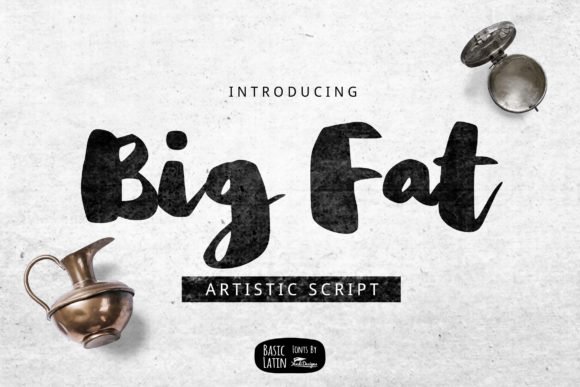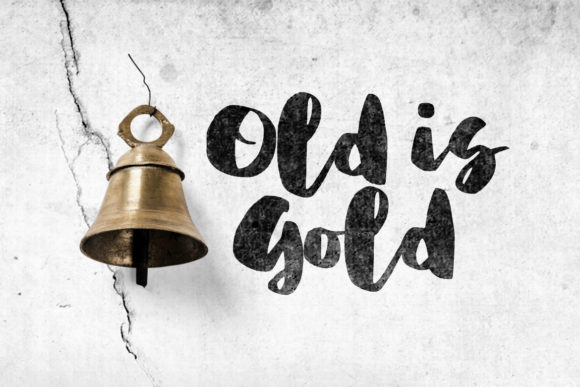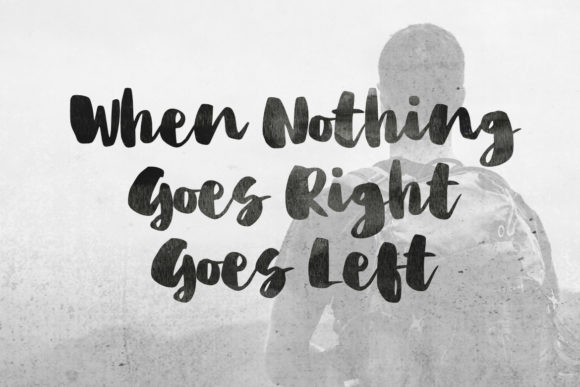
Discover the Unstoppable Charm of Big Fat Font
Have you ever stared at a blank canvas, waiting for that spark of inspiration to strike? For designers, it’s a moment we all know too well. But what if we told you that the perfect font is just around the corner? Meet Big Fat Font, a bold handwritten font that’s been carefully handcrafted to capture the hearts of designers and non-designers alike.
With its casual charm and effortless readability, Big Fat Font is the ultimate addition to any design project. Whether you’re looking to add a touch of personality to a busy background or create a show-stopping headline, this font is sure to shine. Its versatility makes it a valuable asset for designers, allowing them to push the boundaries of creativity and bring their unique vision to life.
Key Features of Big Fat Font
- Unique Characteristic: Distinctive, bold, and playful design that is perfect for making a statement in various applications, including signage, advertising, and editorial content.
- Font Style: Available in a single font style, which is ideal for creating a cohesive and consistent look across different mediums and platforms.
Designer Review: Big Fat Font
Overall, I think Big Fat Font is a solid choice for designers who want to make a statement with their typography. ✨ The font is bold, eye-catching, and really grabs the viewer’s attention. I love the way it adds a touch of playfulness to any design project.
- ✨ High-contrast colors make the font really pop on any background.
- ✨ The bold weight of the font is perfect for headlines and titles.
- ✨ It’s highly customizable, so you can adjust the size, color, and spacing to fit your design.
However, I do have a few concerns about the font’s limitations.
- ⚠️ The font can be a bit too overpowering for smaller text, making it hard to read.
- ⚠️ Some users may find the font too cheesy or overused.
- ⚠️ It’s not ideal for body text or long paragraphs, as it can be tiring to read.
Overall, I think Big Fat Font is a fun and effective choice for designers who want to add some personality to their work. While it’s not perfect, it’s definitely a great option for making a statement.
Getting the Most Out of Big Fat Font
Here are some tips to get the most out of Big Fat Font:
- Use it sparingly to add emphasis and draw attention to important text.
- Pair it with a clean and simple background to avoid visual clutter.
Big Fat Font is commonly used in:
- Headlines and titles.
- Call-to-actions and buttons.
- Emphasis and highlighting text.
Alternatives to Big Fat Font
Impact Font
Impact is a sans-serif font that is often used for headings and titles. It’s bold and condensed, making it ideal for use in situations where you want to draw attention to a particular piece of text. Impact is similar to Big Fat Font in that it’s bold, but it’s more condensed and has a slightly different feel.
Akzidenz-Grotesk
Akzidenz-Grotesk is a sans-serif font that was originally designed for use in advertising and signage. It’s bold and blocky, making it ideal for use in situations where you want to create a sense of drama or emphasis. Akzidenz-Grotesk is similar to Big Fat Font in that it’s bold, but it has a more geometric feel.
Playfair Display is a serif font that is often used for headings and titles. It’s elegant and sophisticated, making it ideal for use in situations where you want to create a sense of luxury or refinement. Playfair Display is different from Big Fat Font in that it’s a serif font, and it has a more refined feel.
Montserrat is a sans-serif font that is often used for headings and titles. It’s bold and geometric, making it ideal for use in situations where you want to create a sense of modernity or sophistication. Montserrat is similar to Big Fat Font in that it’s bold, but it has a more geometric feel and is often used in urban or industrial contexts.
Q: Can I customize Big Fat Font to fit my design needs?
Yes, Big Fat Font is highly customizable. You can adjust the font’s size, color, and style to fit your design needs. Additionally, many design applications offer advanced typography features, such as kerning, ligatures, and font variations, which can be used to further customize Big Fat Font.